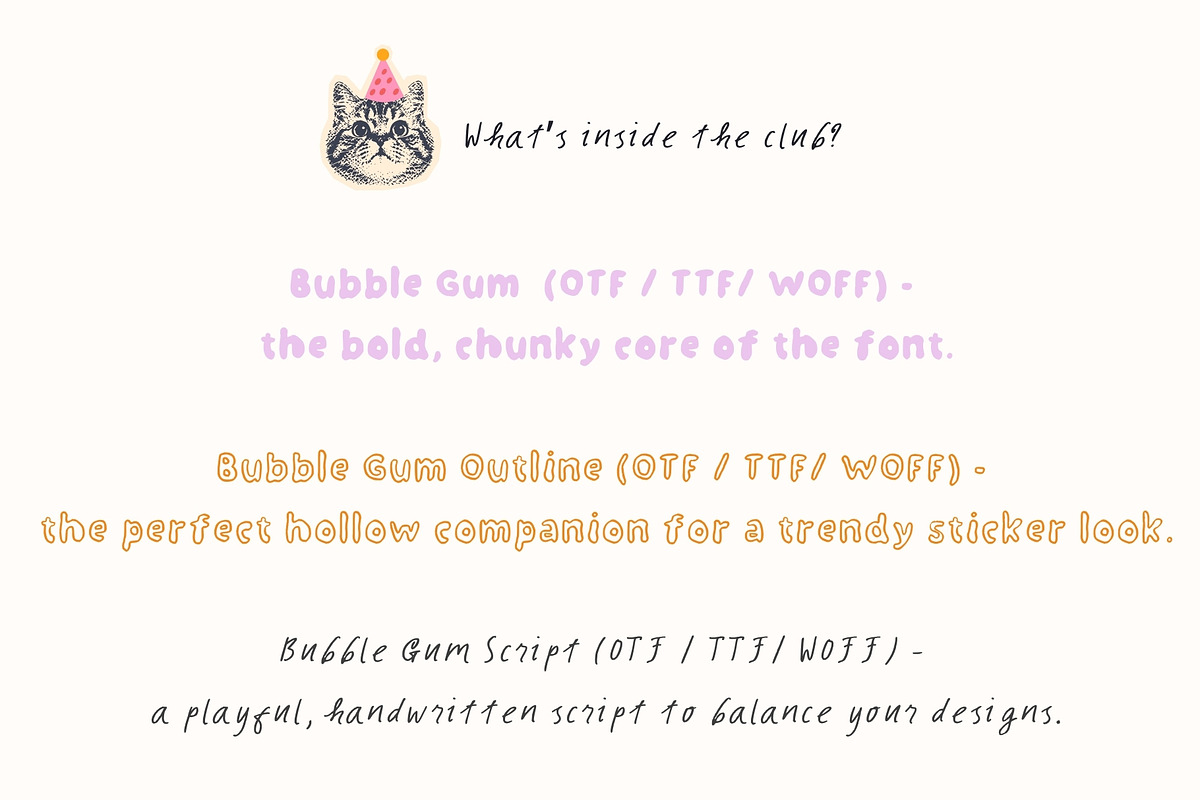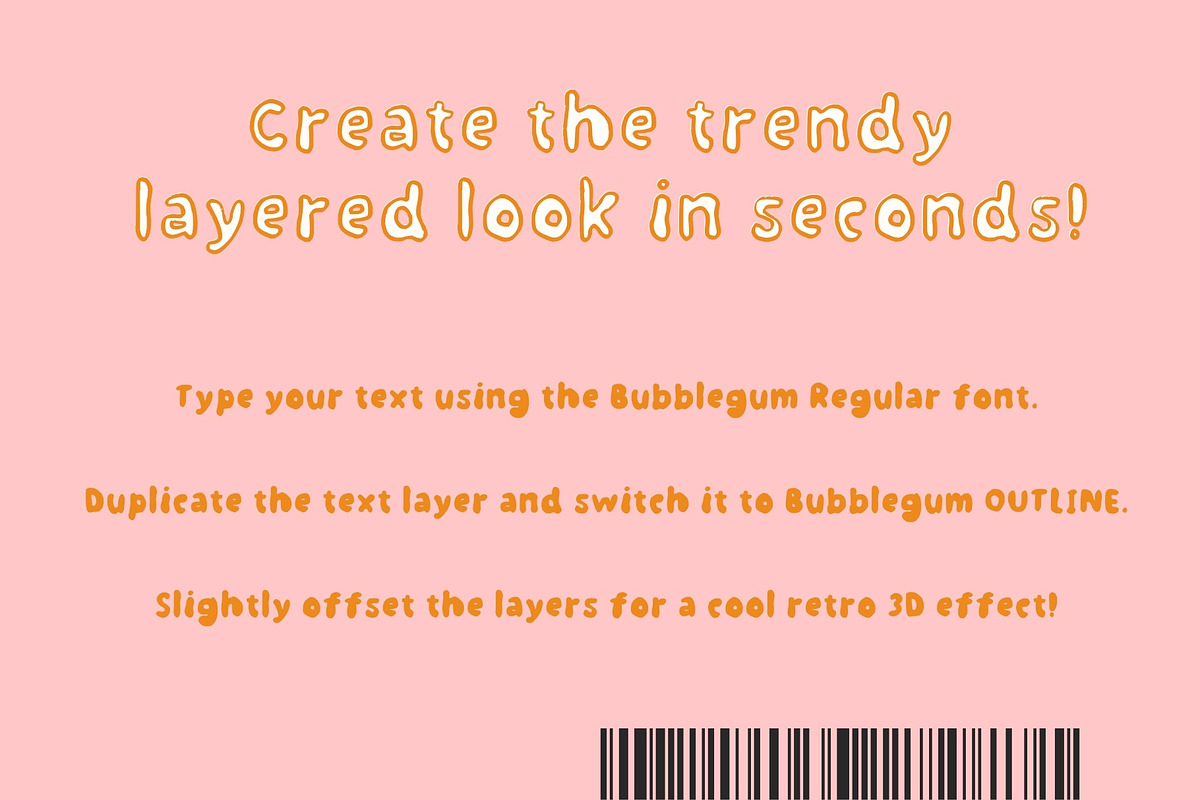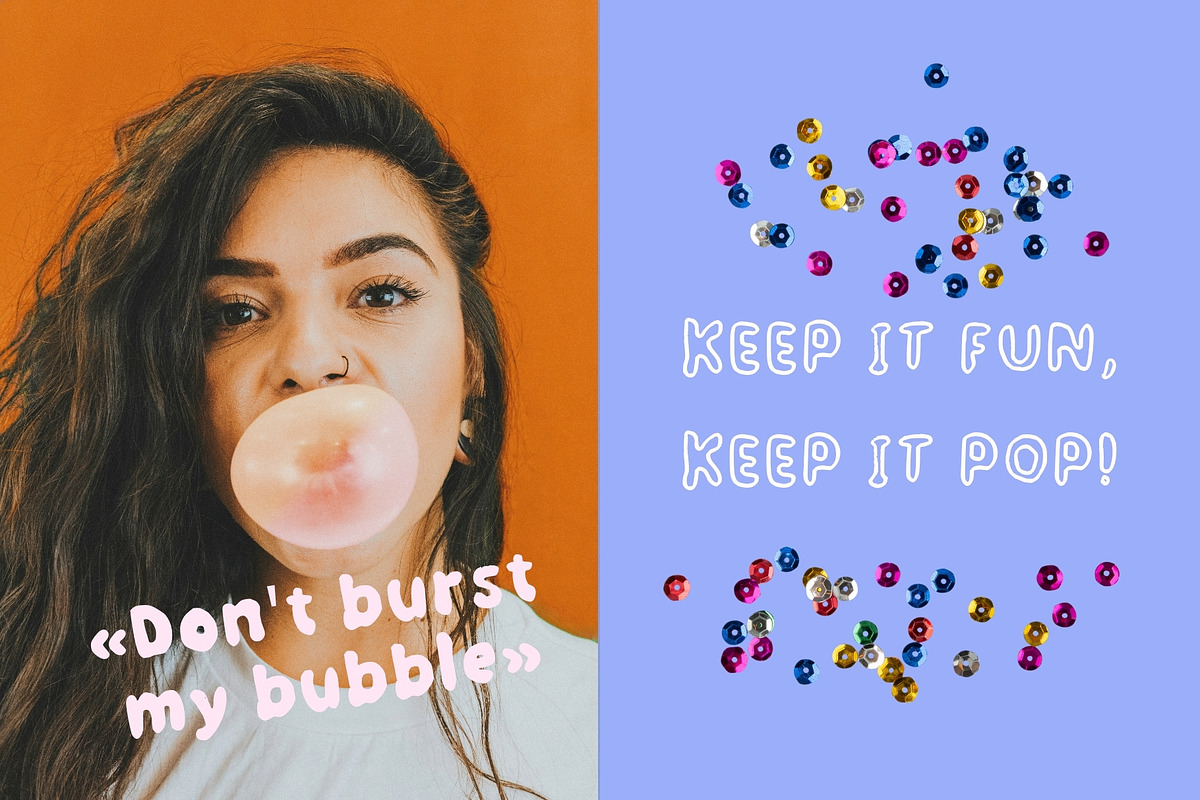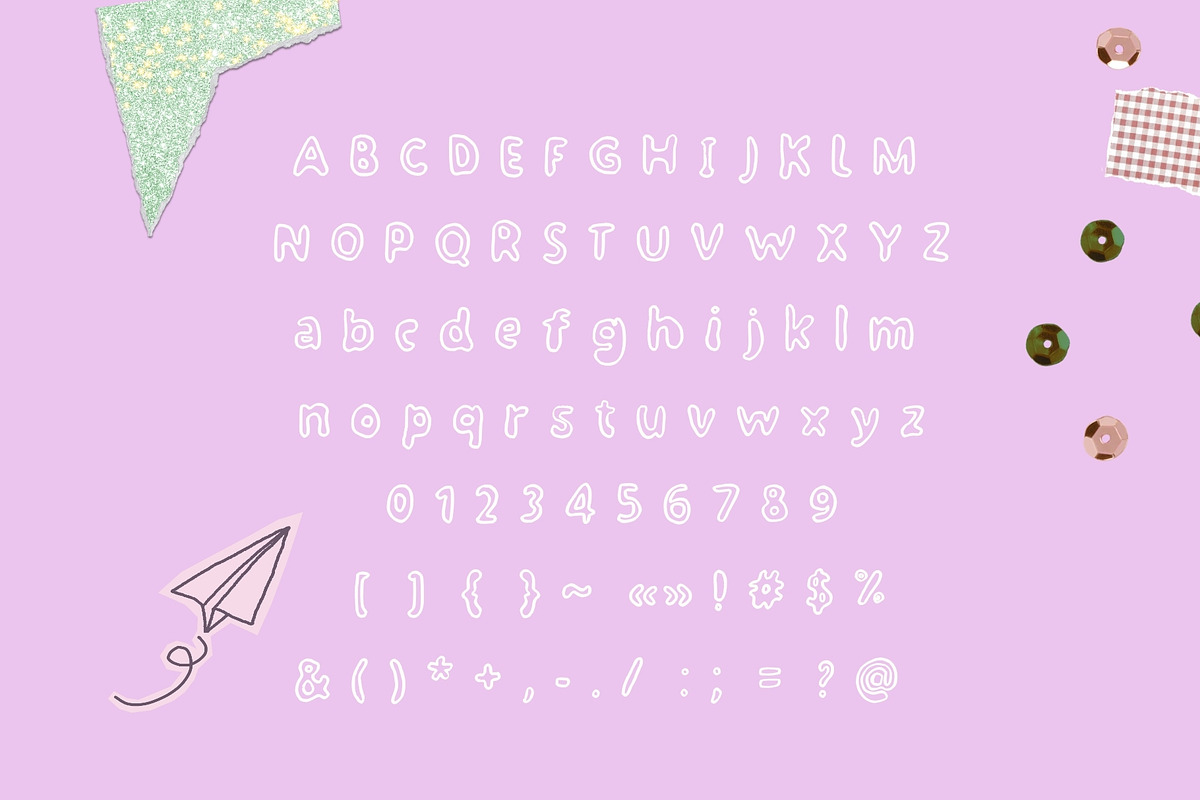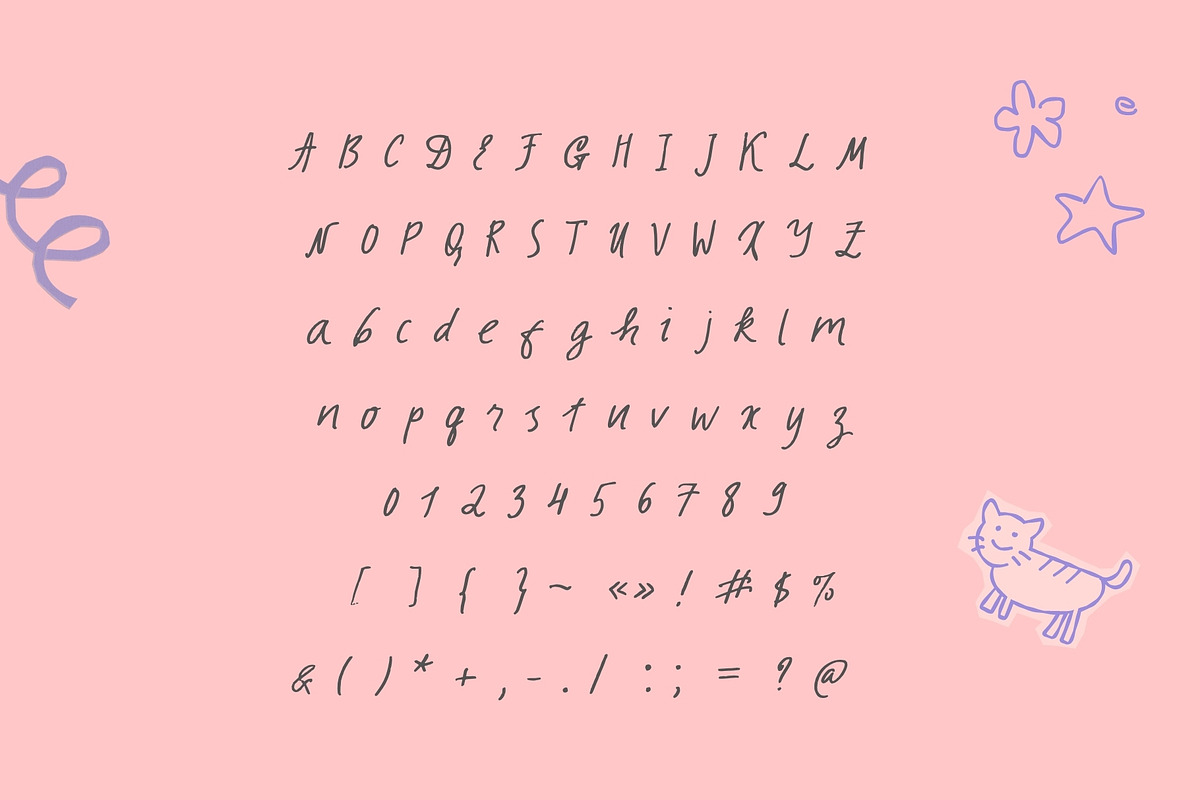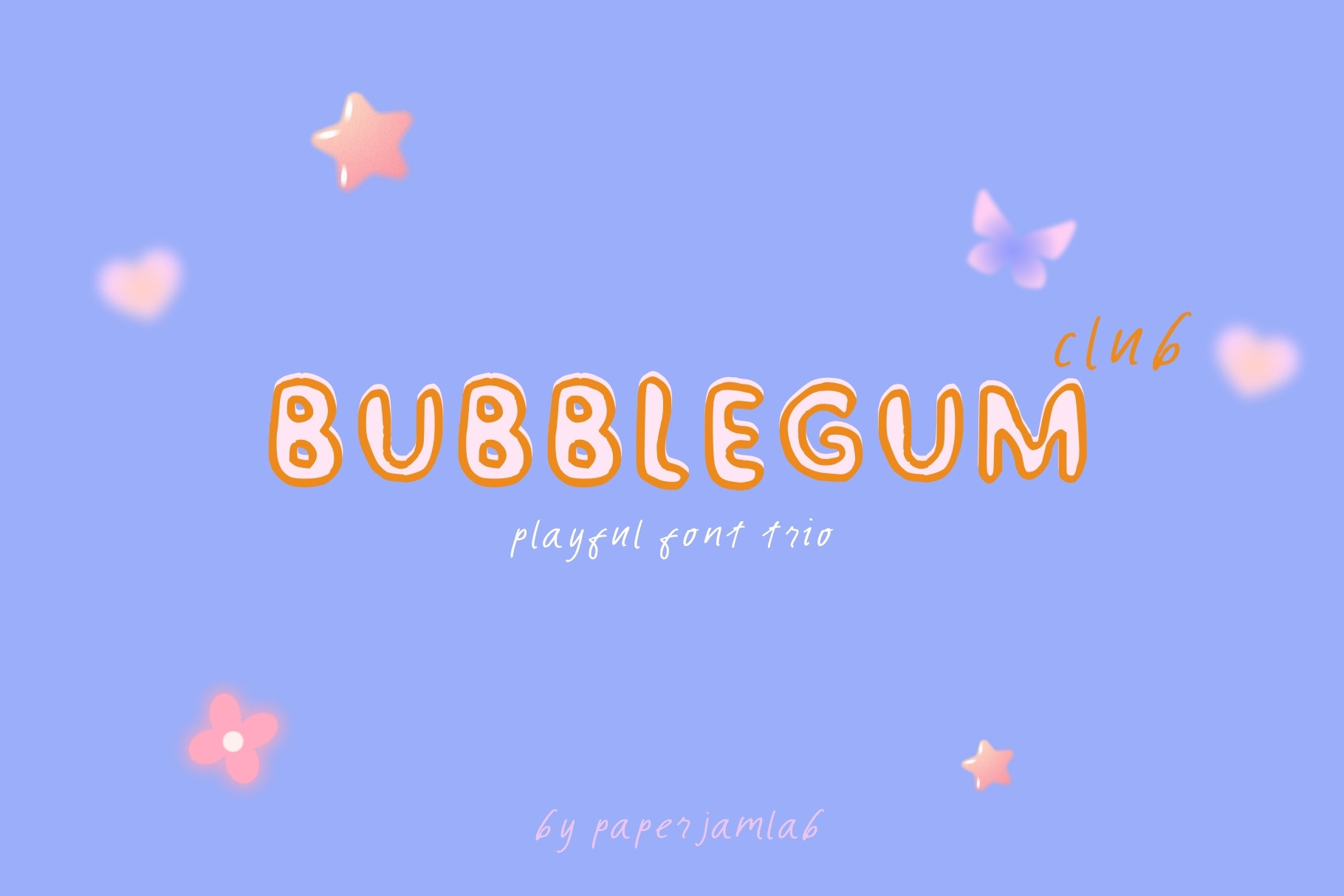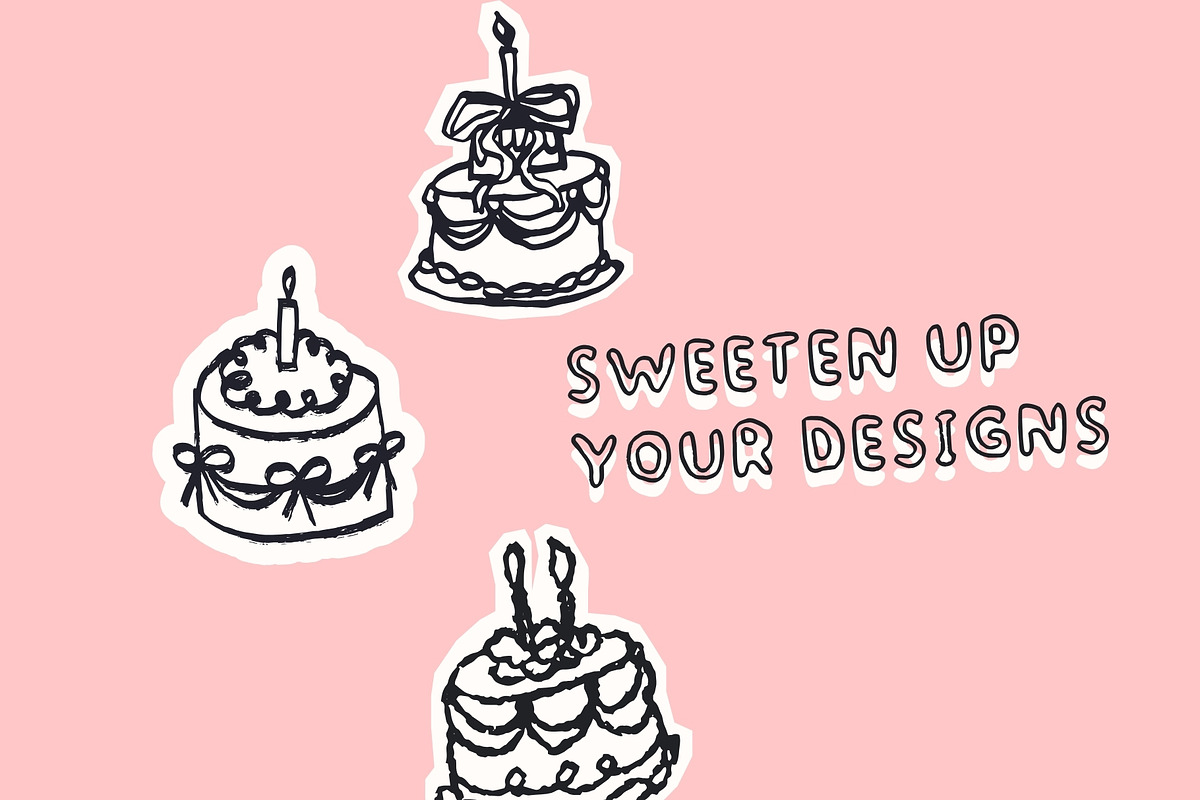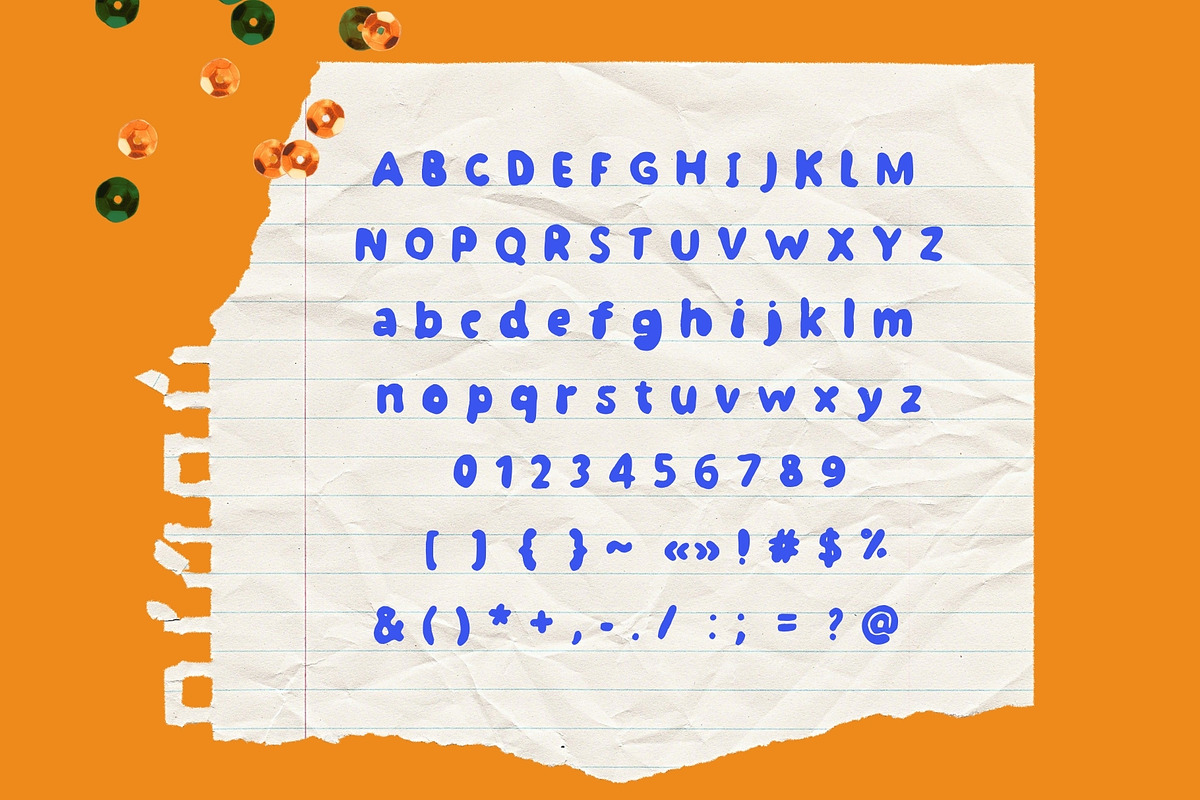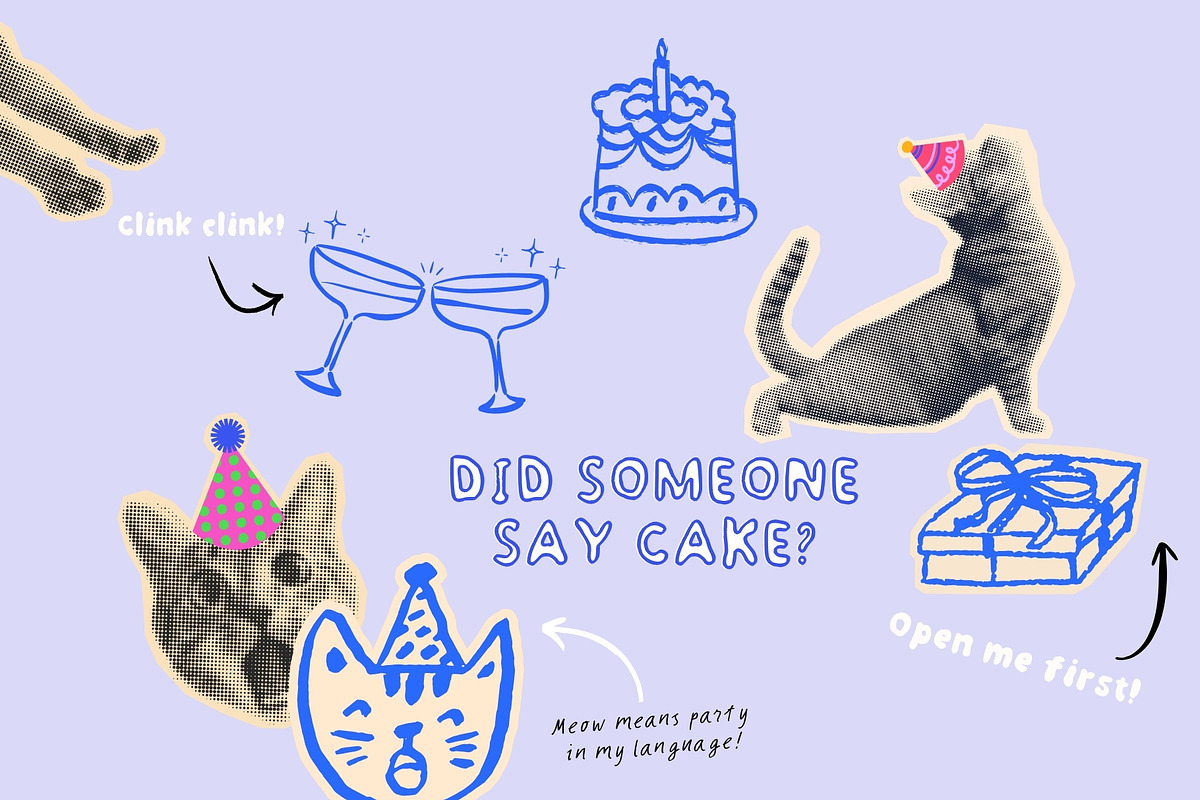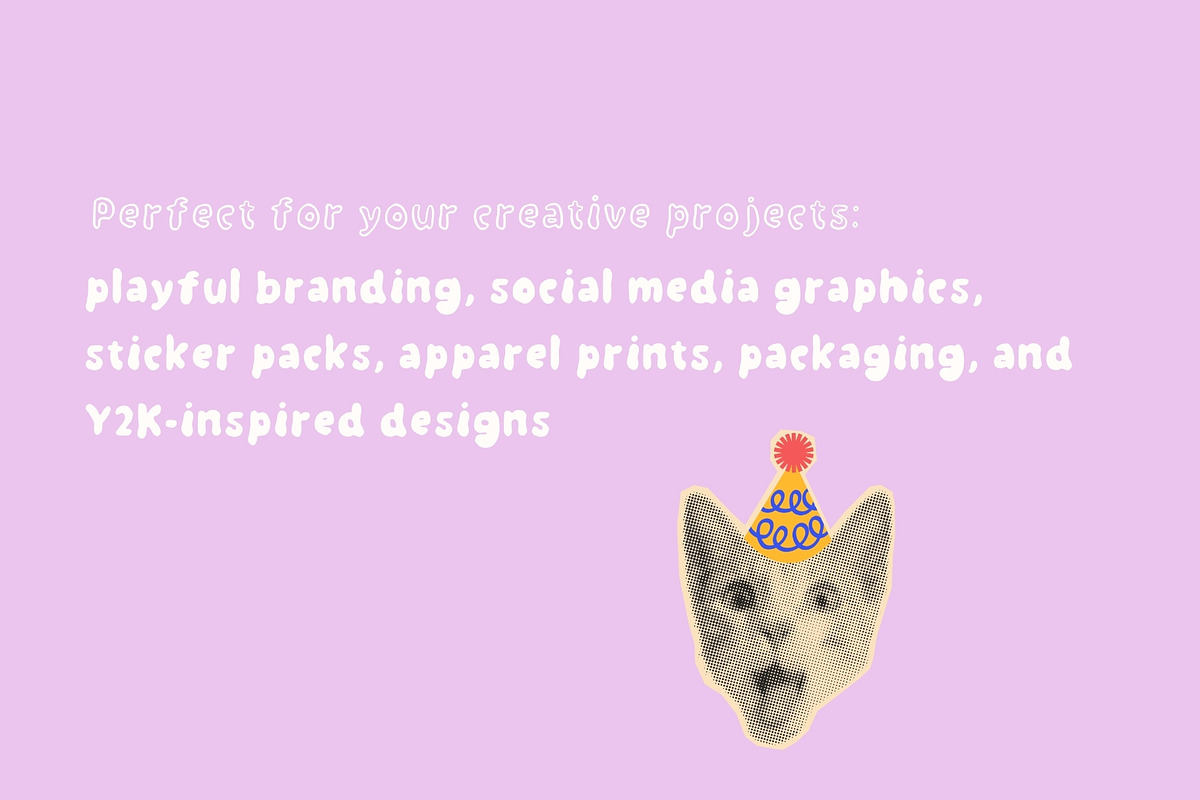
Bubble Gum Club. Playful trio font
Welcome to the Bubble Gum Club!
Get ready to sweeten up your designs with this delightfully chunky, ridiculously playful font trio. Inspired by the nostalgic aesthetics of Y2K, retro sticker packs, and vibrant kidcore vibes, this font family is designed to bring instant joy and an authentic hand-drawn touch to your creative projects.
The Bubble Gum Club isn't just a single font—it’s a complete design collective featuring three distinct styles that mix, match, and layer together perfectly:
Bubble Gum: The bold, chunky core of the font family. Perfect for making a loud, happy statement.
Bubble Gum Outline: The perfect hollow companion designed specifically to create a trendy, pop-art sticker look.
Bubble Gum Script: A whimsical, quick-noted handwritten script to balance out your layouts and add a personal, organic touch.
This versatile trio is ideal for a wide range of creative applications:
Playful branding & logo design
Sticker packs, enamel pins, and badges
Kids' books, school projects, and educational materials
Apparel prints, tote bags, and trendy merchandise
Social media graphics, playful quote art, and posters
Y2K and 90s/00s-inspired retro packaging
Full Uppercase & Lowercase alphabet
Numbers, comprehensive punctuation, and essential symbols